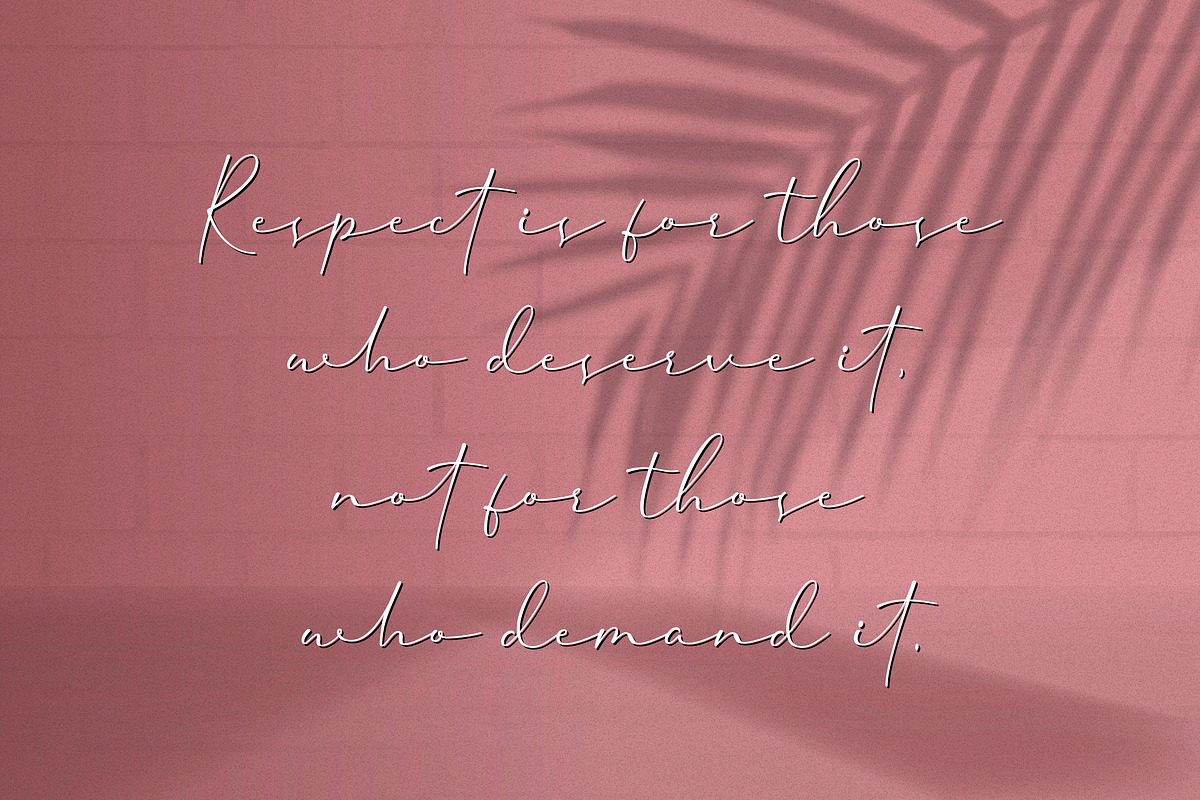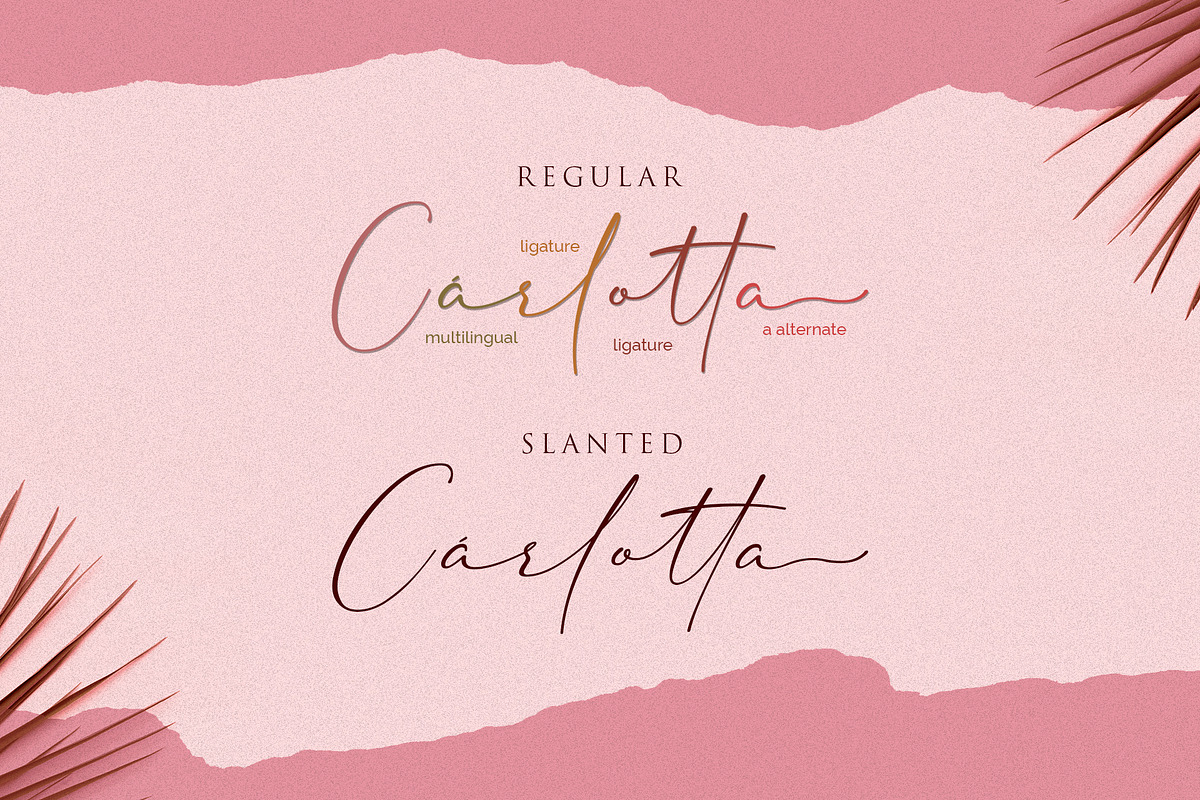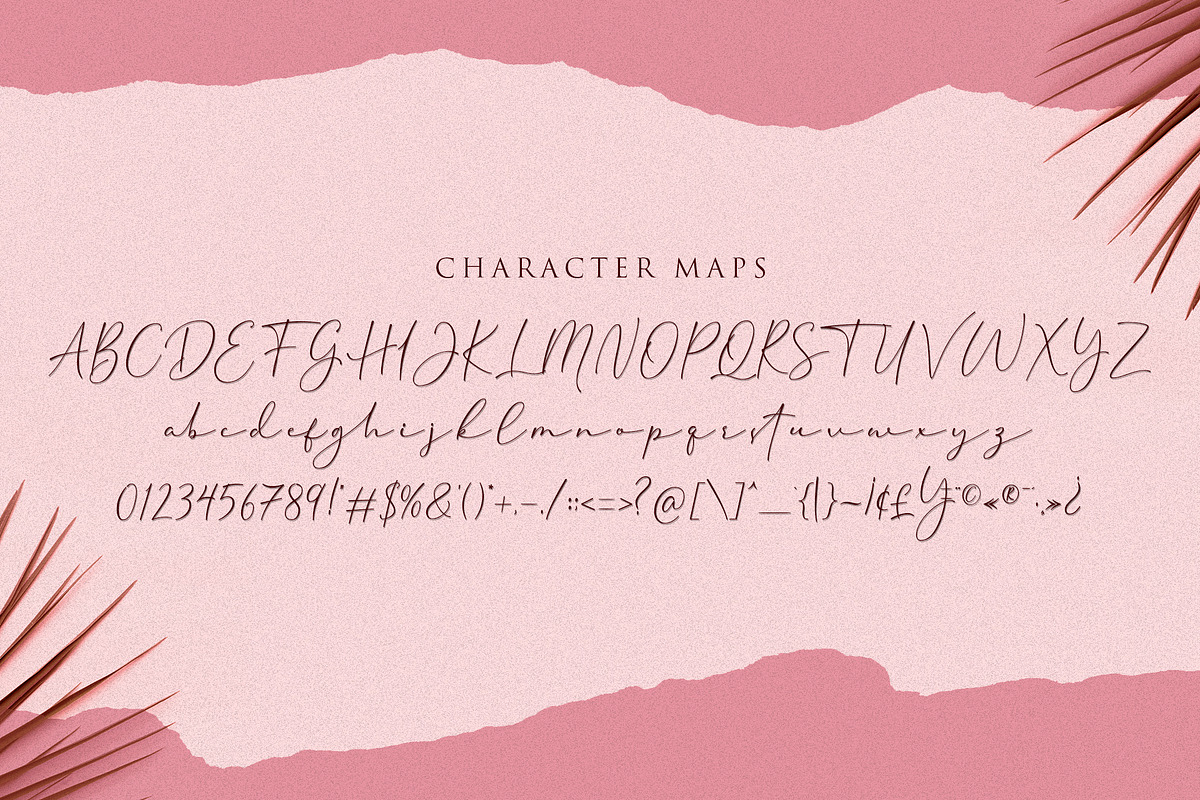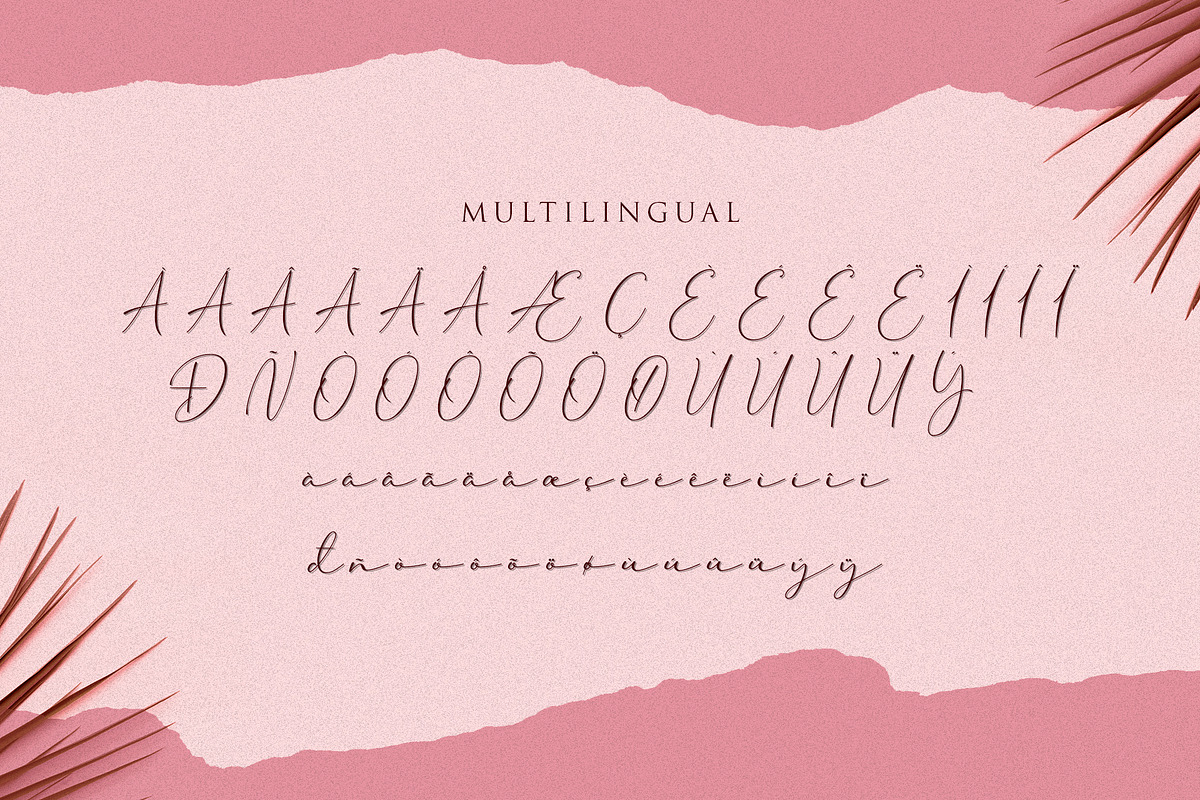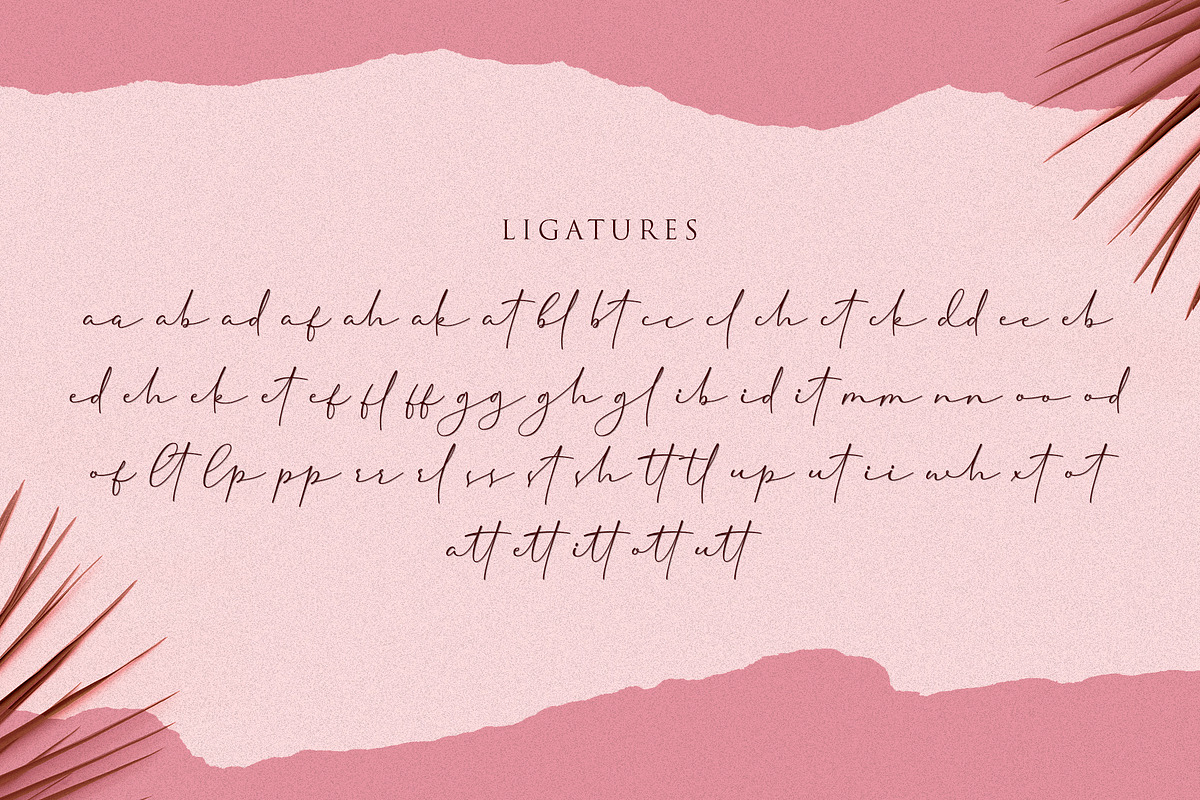
Cherolina-Lovely Elegant Script
"Cherolina" includes full set of uppercase and lowercase letters, numerals,multilingual symbols, punctuation and ligatures. Also it includes: -short lowercase beginning and ending swashes -lowercase ending swashes, which serve to connect two words or letters (This is so perfect for invitations, monograms) -long lowercase beginning and ending heart swashes.
The font has smooth texture, so would be perfect for all types of printing techniques+you can do embroidery, laser cut, gold foil etc.